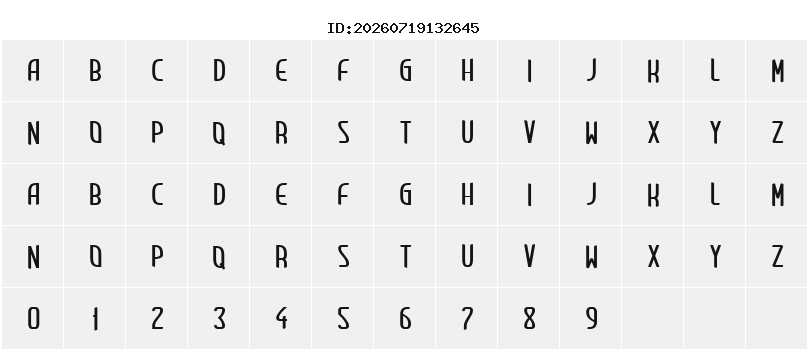
Clip Preview
• Font Name: Clip
• Font ID: Clip Condensed
• Full Font Name: Clip Condensed
About Clip.ttf
Clip.ttf is a modern, elegant sans-serif font designed for ultimate readability and visual harmony. Perfect for branding, headlines, web design, and print materials.